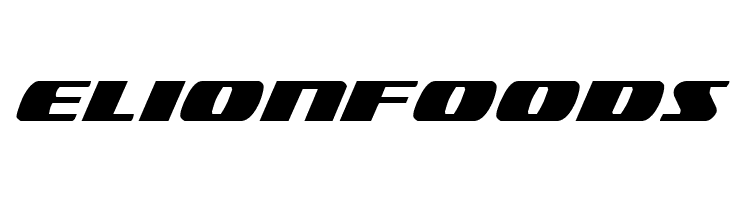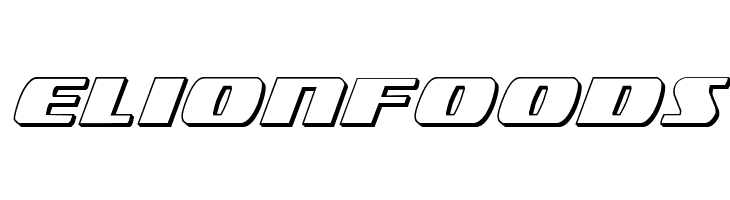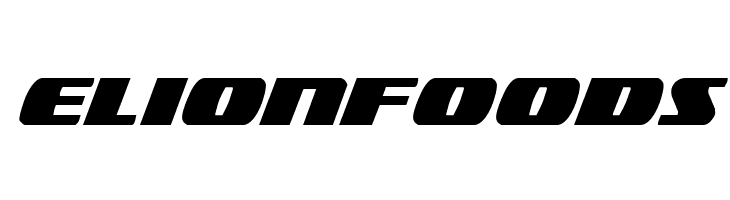
• AmericanInhabitants
Ornate, pictorial font based on indigenous American symbols.
• Americorps 3D Condensed
A bold, 3D, condensed font with a modern geometric design.
• Americorps 3D Regular
A bold, 3D font with a futuristic and dynamic style.
• Americorps Academy Regular
A bold, dynamic font with a slanted, outlined style ideal for impactful designs.
• Americorps Bold
A bold, slanted font with a modern and dynamic style.
• Americorps Bold Condensed
A bold, condensed font with angular lines and a dynamic style.
• Americorps Condensed
A bold, slanted, and condensed font ideal for impactful headlines.
• Americorps Expanded
A bold, angular font with a dynamic and modern style.
• Americorps Extra-condensed
A bold, extra-condensed font with a dynamic and modern style.
• Americorps Gradient Regular
A bold, modern font with a unique gradient effect and tight spacing.